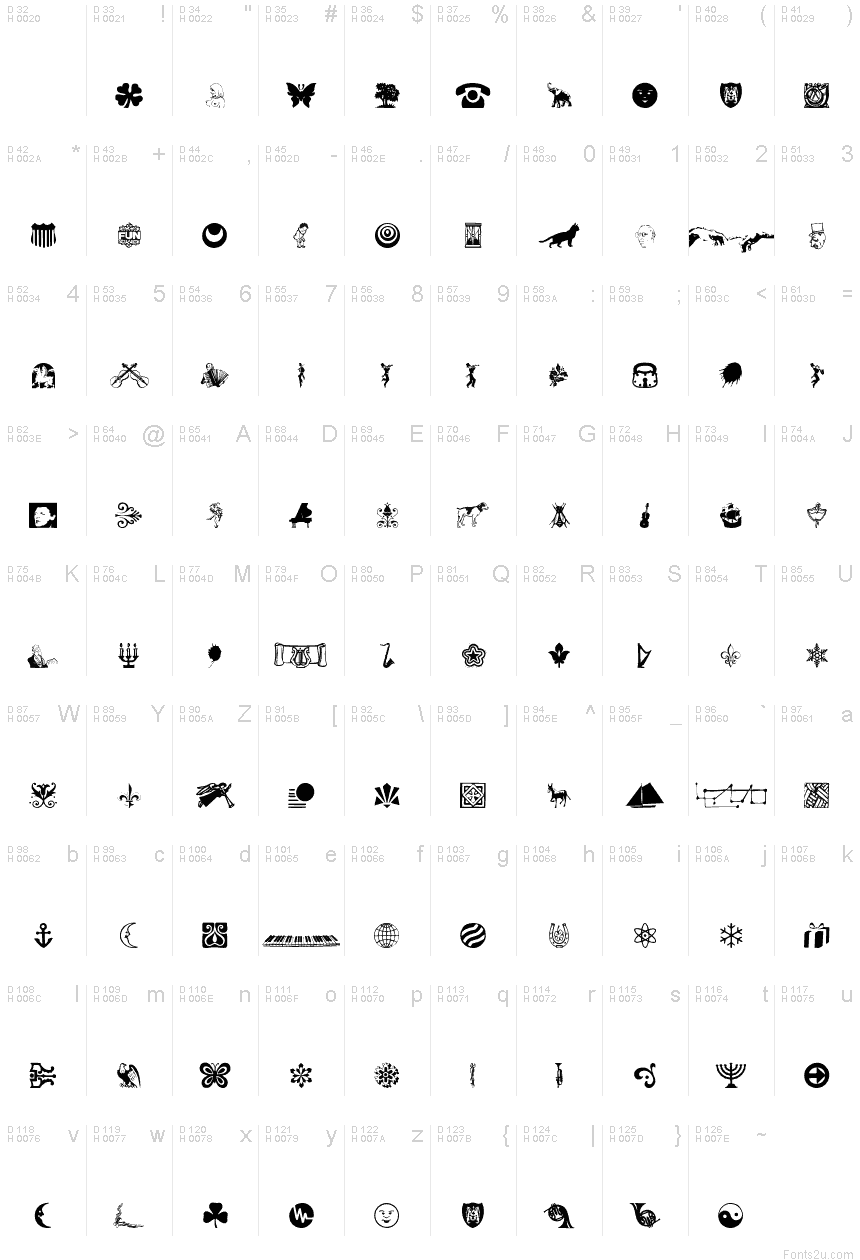
DavysNewOther
DavysNewOther font by David Rakowski is a free dingbats font, a grab-bag typeface of inky symbols that feel hand-cut and a little mischievous. You get everything from a grand piano silhouette and a striped tile to a sleepy crescent moon, a punchy sound-wave badge, and curling flourishes that read like instant mood.
Using DavysNewOther, drop these marks into music flyers, album art, zines, editorial spot art, quirky logos, packaging seals, and social graphics where a single bold icon has to carry the vibe. Keep it on the larger side so the chunky blacks stay crisp, and pair it with a calm sans like Inter or Helvetica to let this free font do the talking.